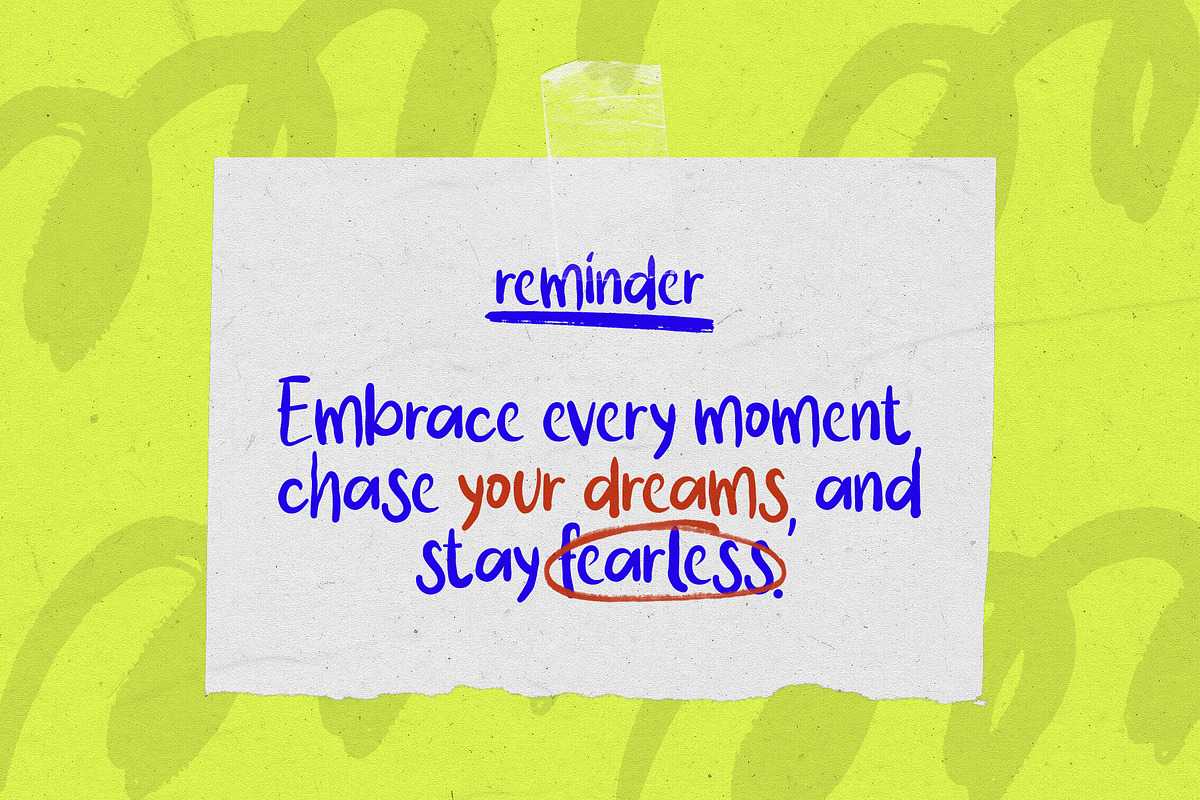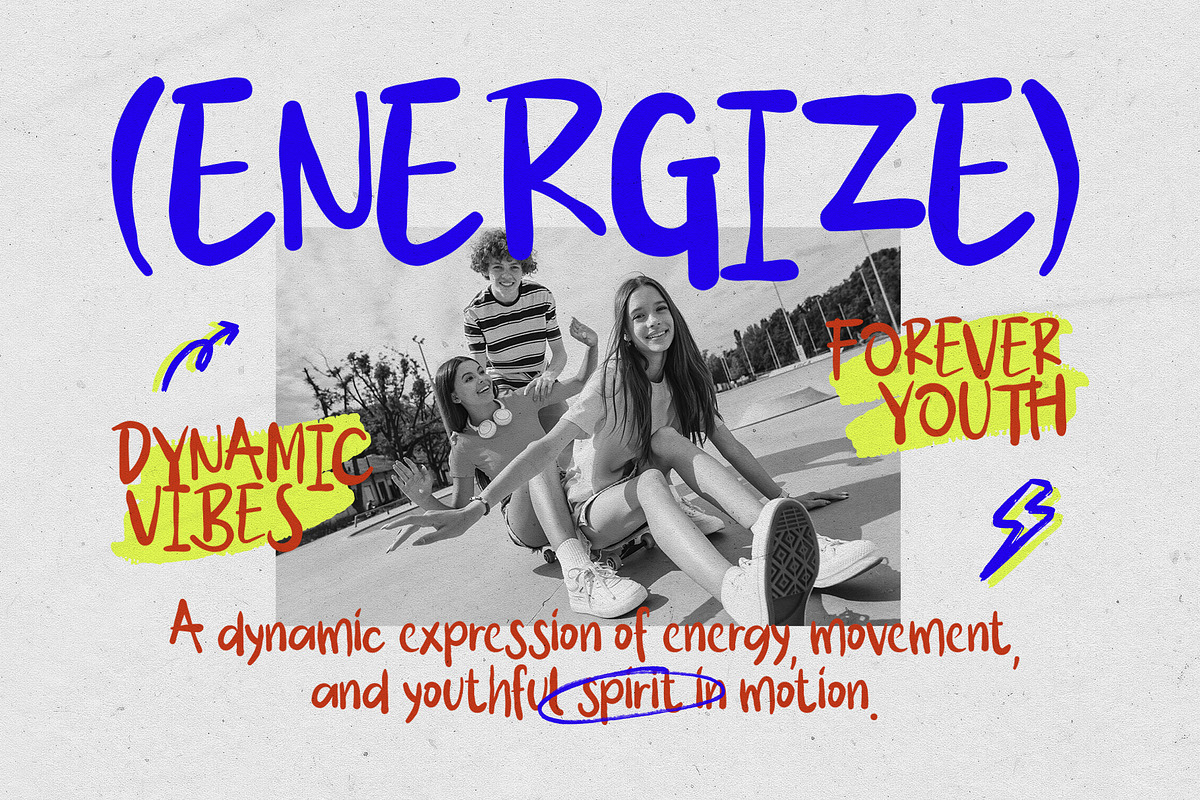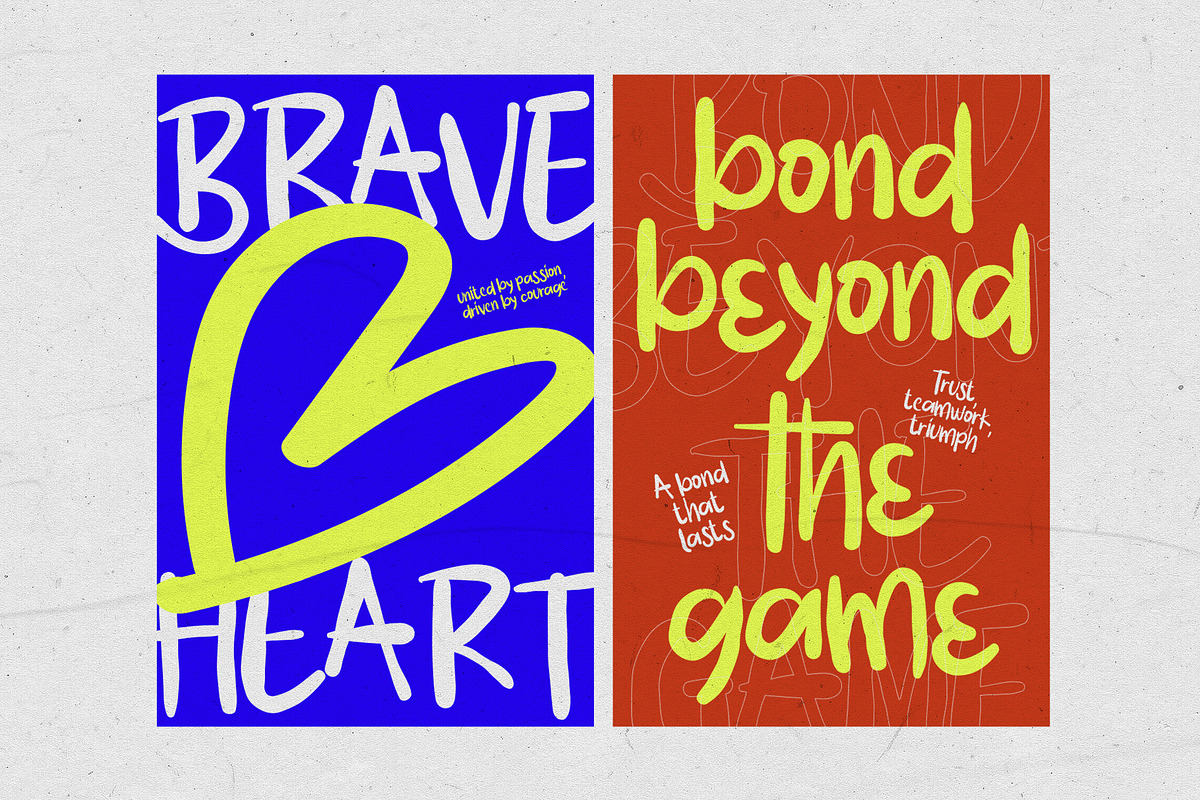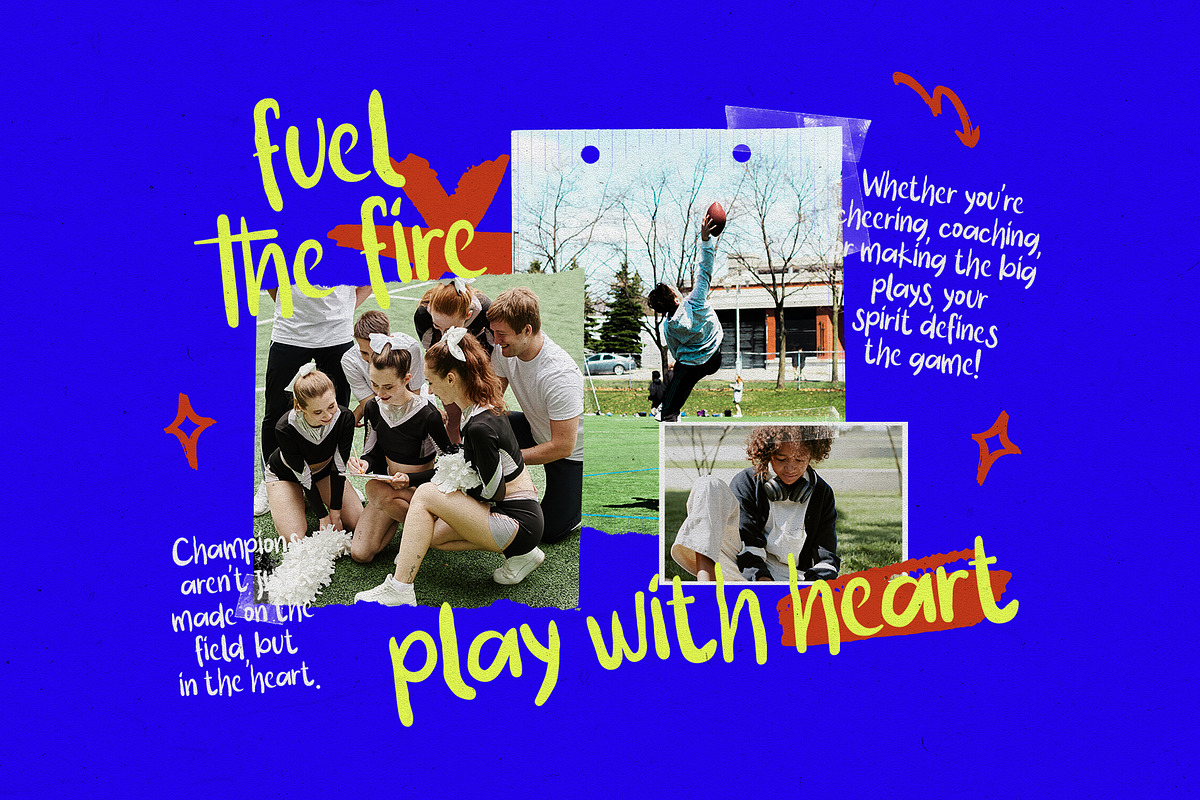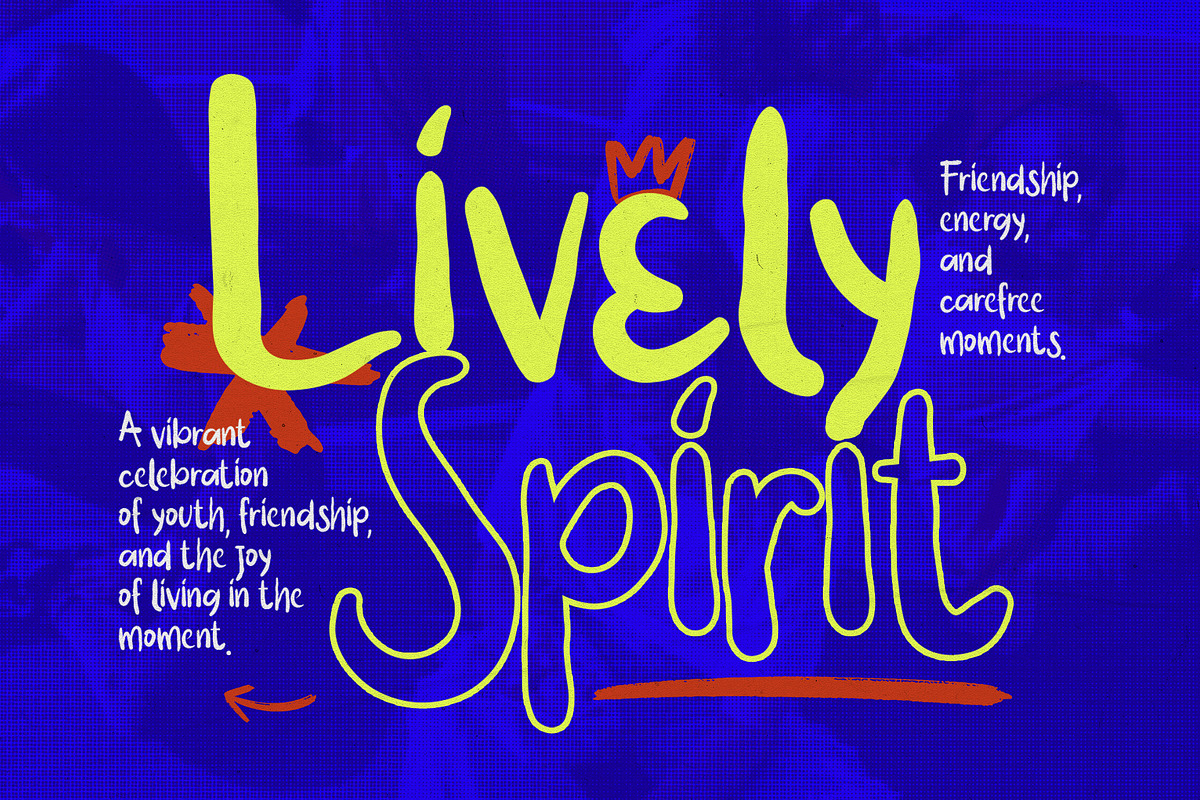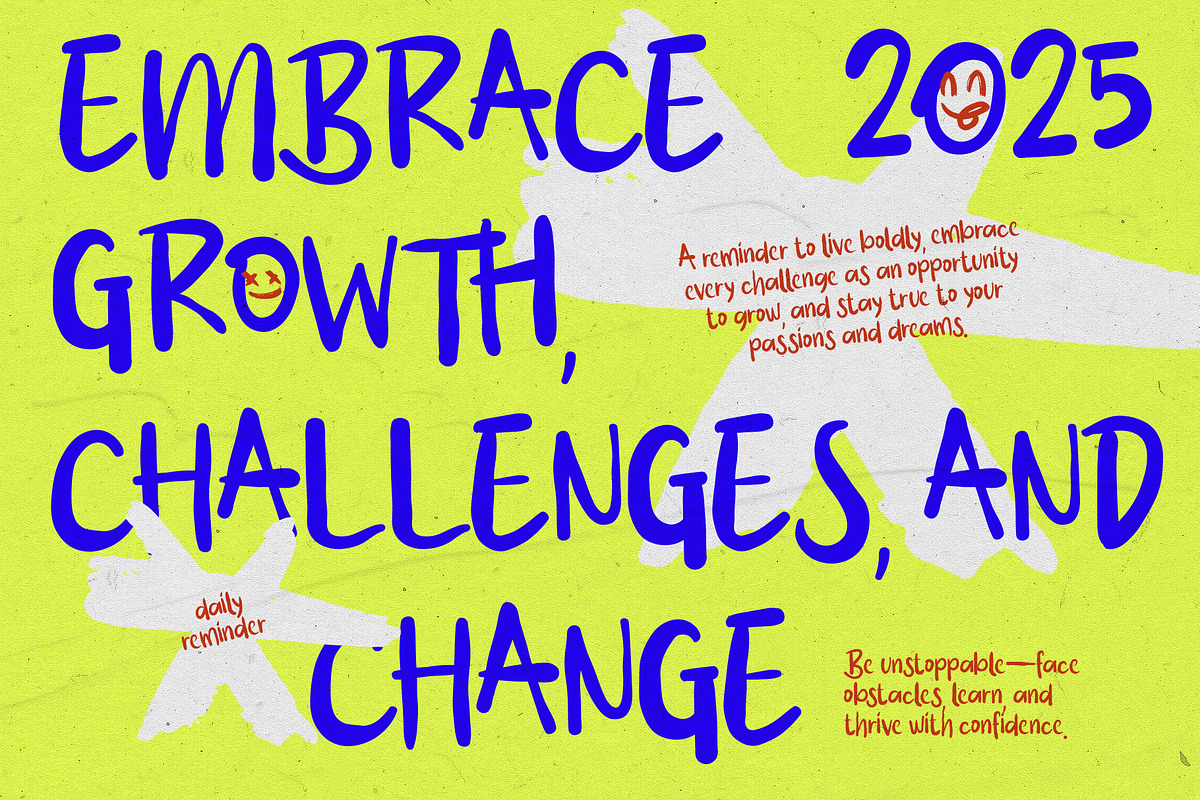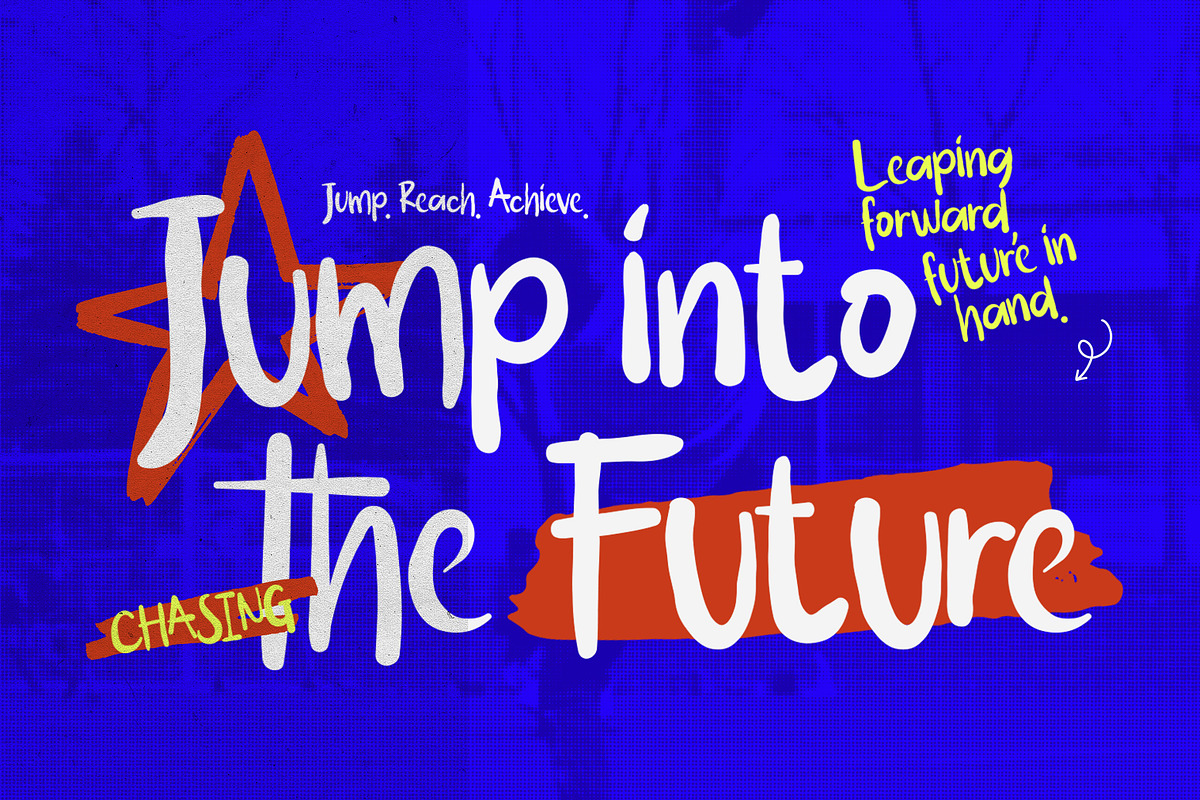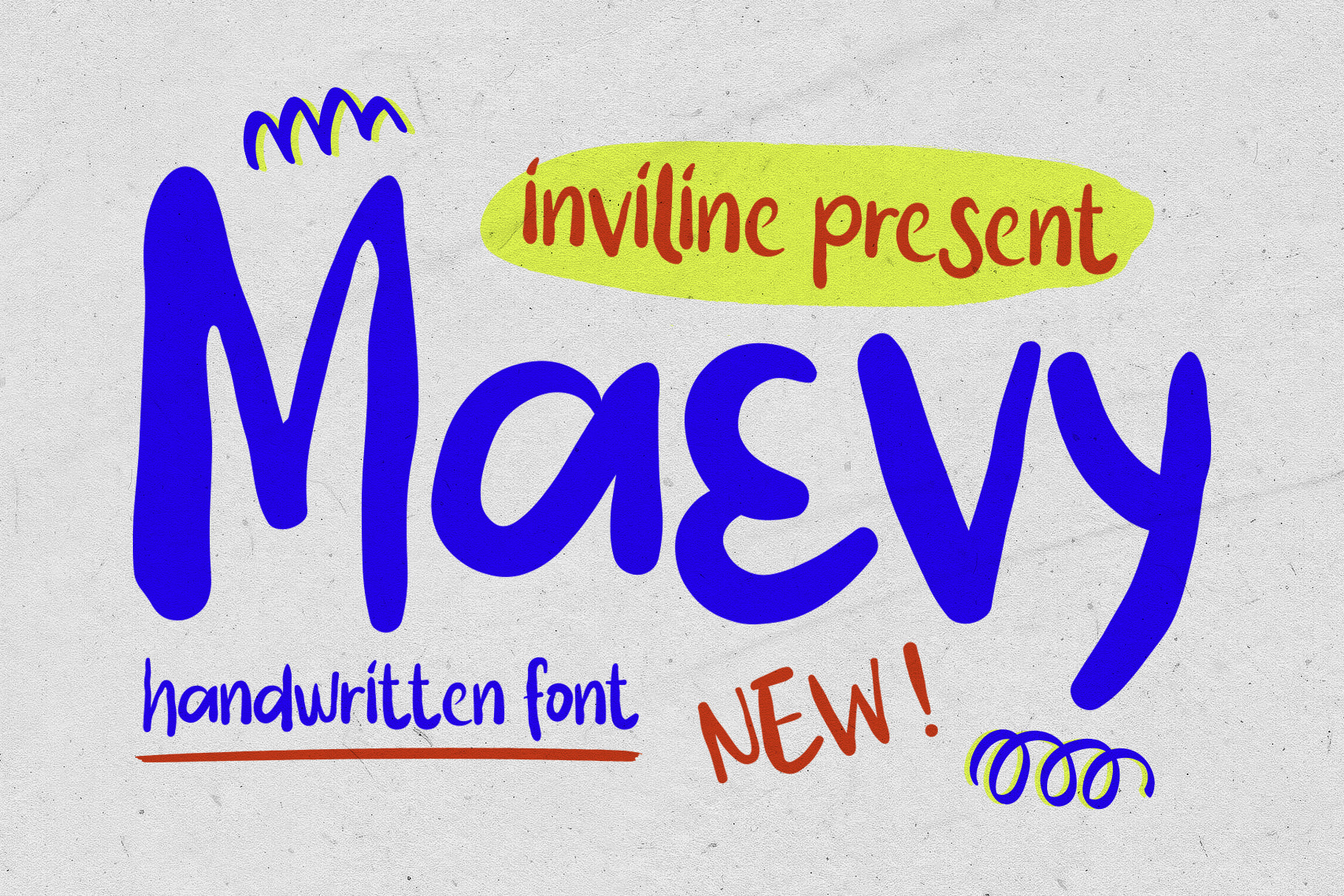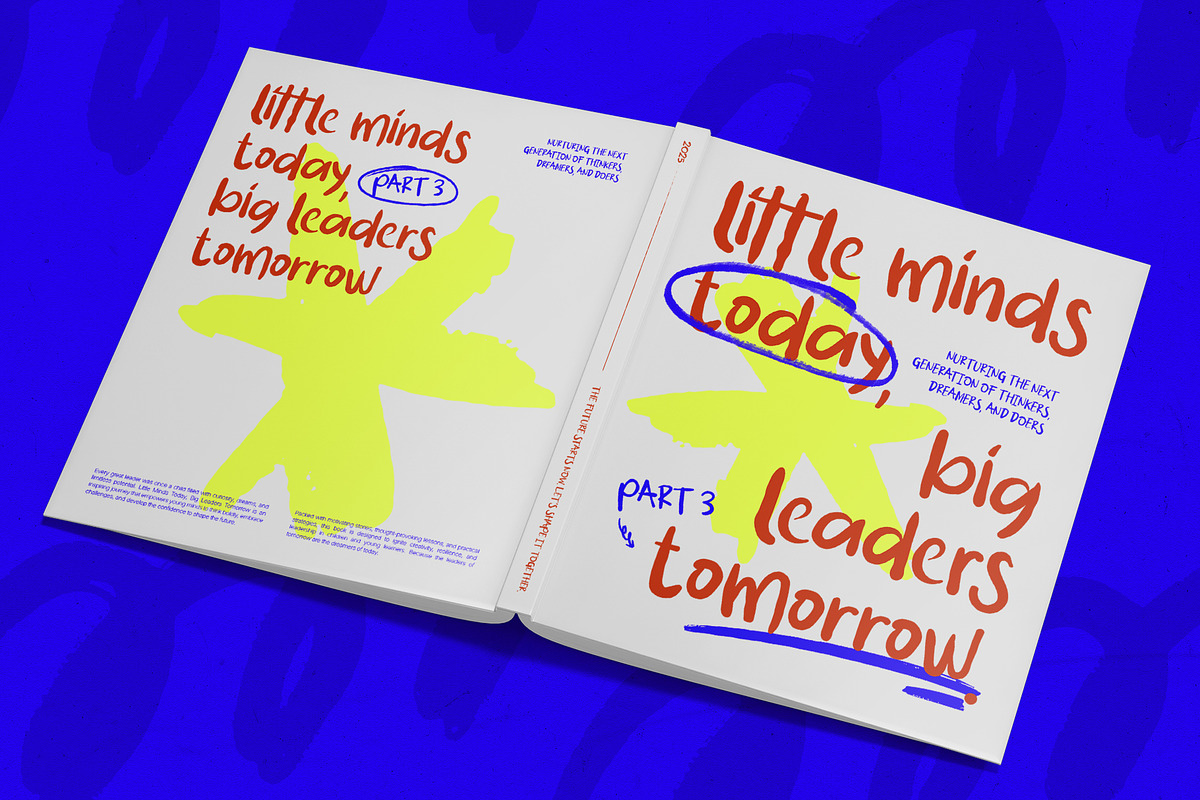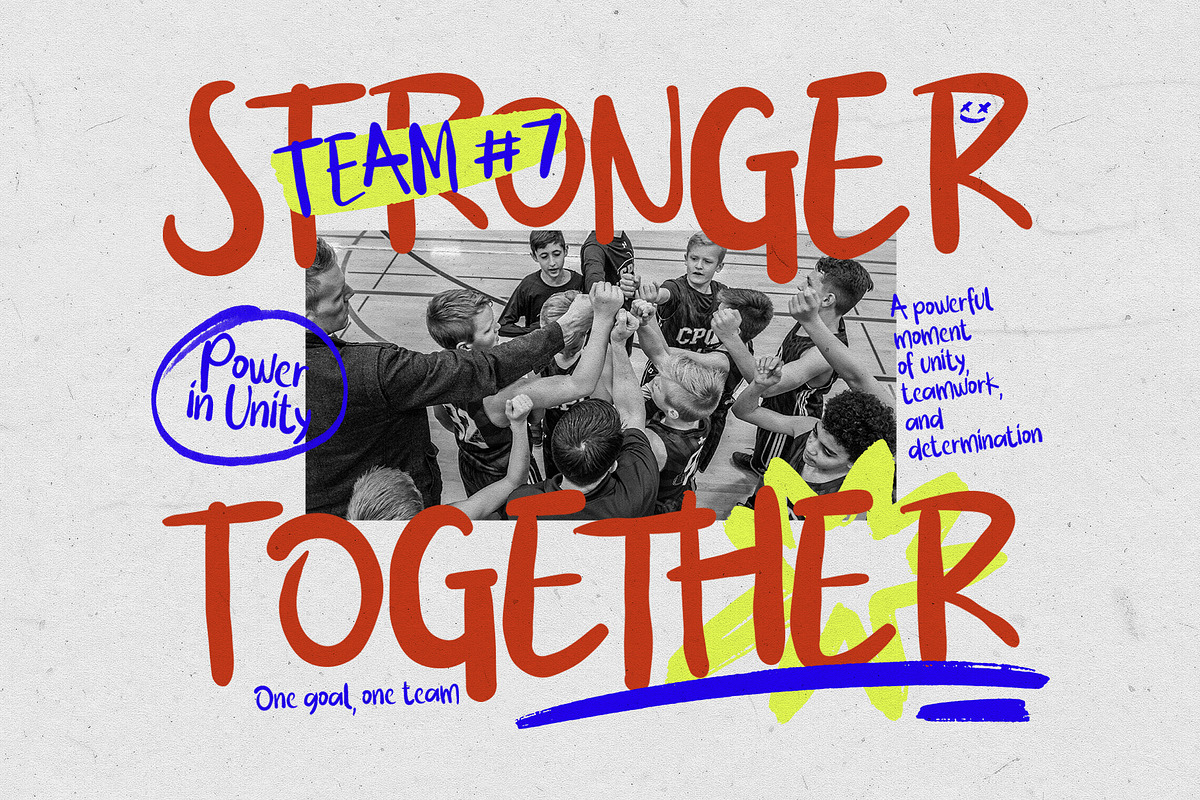
Maevy - Brush Handwritten Font
MaeVy is a playful brush handwritten typeface designed with loose strokes, organic shapes, and an energetic handmade personality. Its casual construction and expressive rhythm give every word a spontaneous, friendly, and creative appearance.
Inspired by hand lettering, doodles, colorful youth graphics, and contemporary lifestyle design, MaeVy is ideal for projects that need typography that feels approachable, lively, and full of personality.
MaeVy combines natural brush movement with a clean and readable handwritten structure. Its tall uppercase forms, rounded lowercase characters, and subtle irregularities create an authentic hand-drawn look while remaining clear enough for prominent display typography.
The font works especially well for posters, branding, educational graphics, packaging, quotes, social media posts, and youth-focused campaigns. Pair it with doodles, bright colors, rough textures, or minimalist layouts to create a playful contemporary visual identity.
MaeVy Brush Handwritten Font
Uppercase characters A–Z
Lowercase characters a–z
Numerals 0–9
Standard symbols and punctuation
Multilingual accented characters
Playful brush handwritten style
Natural and expressive stroke movement
Friendly handmade personality
Organic and slightly irregular letterforms
Uppercase and lowercase alphabet
Complete numerals
Standard symbols and punctuation
Strong readability at medium and large sizes
Ideal for headlines, logos, quotes, and short phrases
Works well with colorful layouts and doodle graphics
Suitable for youth, lifestyle, educational, and creative projects
Easy to pair with clean sans serif typefaces
Multilingual Support: Western European characters with diacritics (À, Á, Â, Ç, É, Ñ, Ø, Ü, etc.)
Use MaeVy at medium or large sizes to showcase its expressive handwritten character. It works best for headlines, logos, posters, quotes, product names, and short messages rather than long body text.
Pair it with a simple sans serif font for captions and supporting information. Bright colors, doodle elements, underlines, rough highlights, and paper textures can strengthen its playful handmade personality.